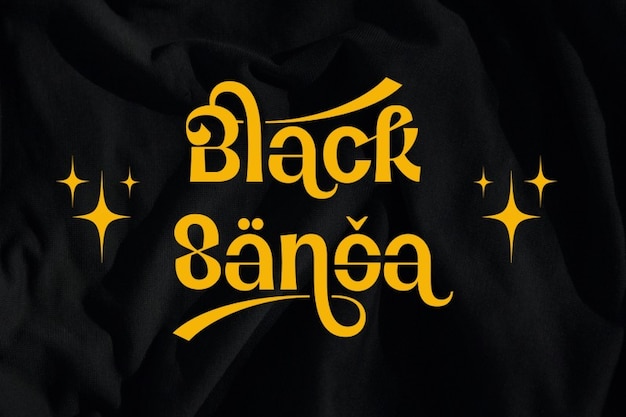
Black Sansa Black Font
It is the epitome of classic elegance in the world of fonts. Its refined lettering exudes a timeless charm that can elevate any design. Whether you're creating invitations, branding materials, or artistic projects, this font brings a touch of sophistication to your work. The letters are beautifully crafted, making "Black Sansa" a top choice for those seeking a tasteful and traditional font that speaks volumes about your commitment to quality and style.